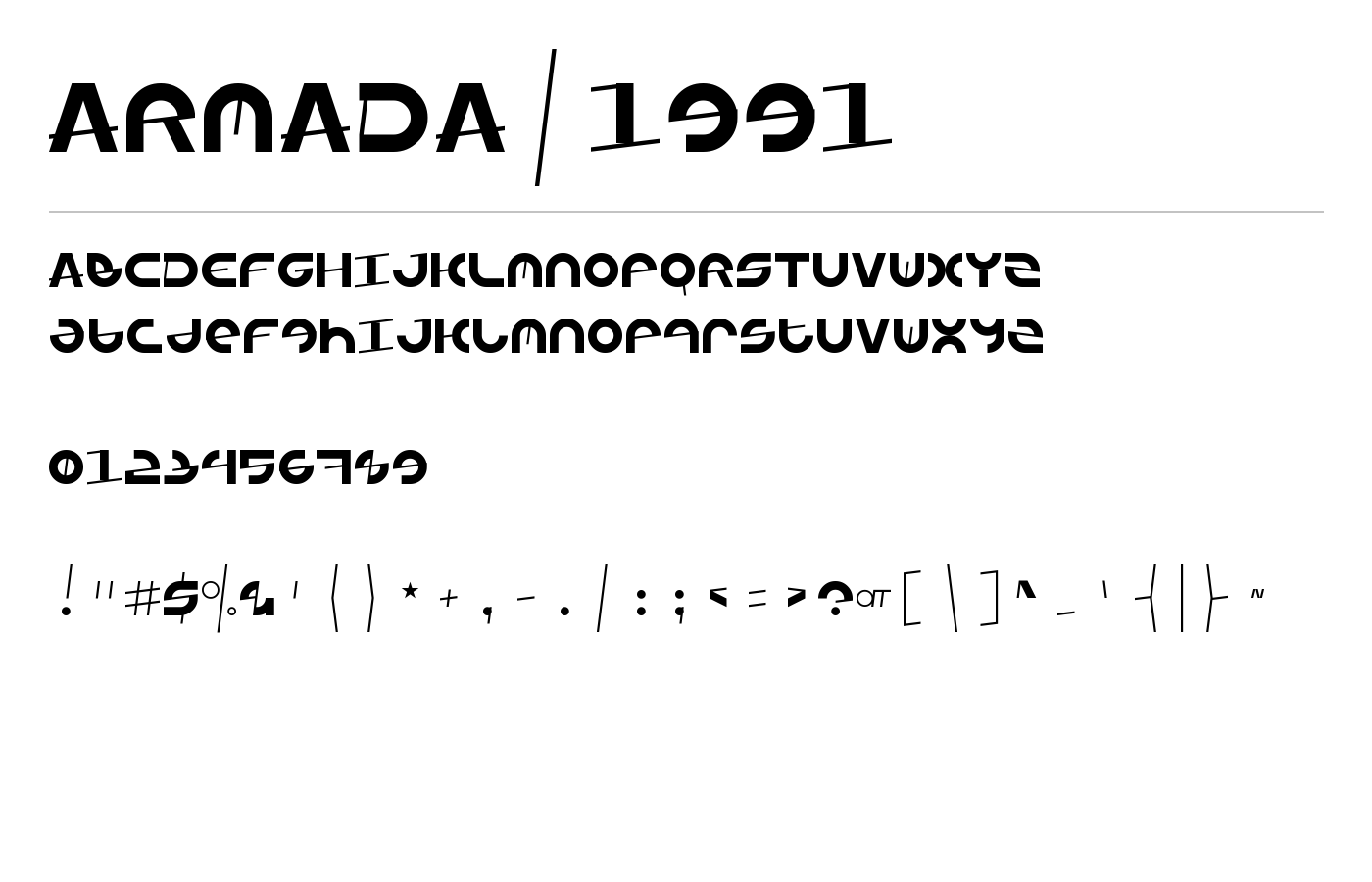
ARMADA/1991 is a bold, modern sans serif font with a unique futuristic character, featuring a mix of smooth, rounded forms and sharp, angled cuts that create a dynamic, edgy feel. Its medium width and relatively low x-height, combined with distinctive letter shapes and numerals, make it ideal for standout headlines, logos, and branding that aim to convey innovation and forward-thinking style. This font works best in creative and tech-oriented contexts where a bold, contemporary look is desired.
ARMADA/1991 Font
About ARMADA/1991 Font